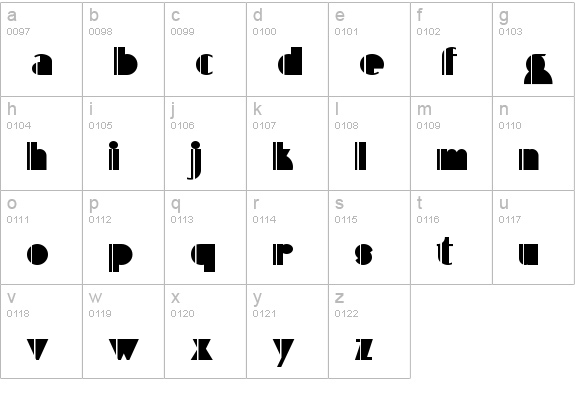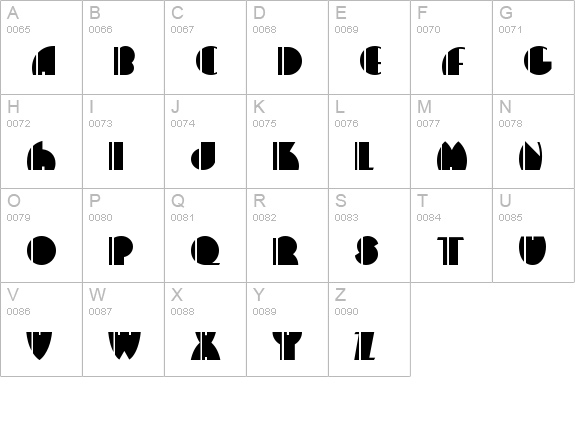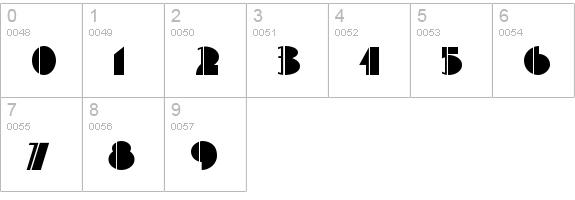
High Five NF font is a charismatic and dynamic typeface that adds a touch of fun and energy to any design project. With its bold and playful appearance, this font is perfect for creating eye-catching headlines, posters, or branding materials. The unique design of High Five NF font features exaggerated lines and curves that give it a distinct and modern look. What makes High Five NF font even better is that it is available for free download at FontsMarket.com. This means that you can easily access this fantastic font and use it in your projects without any cost. Whether you're a designer looking to add some flair to your work or just someone who appreciates good typography, High Five NF font is sure to impress with its vibrant personality and versatility.